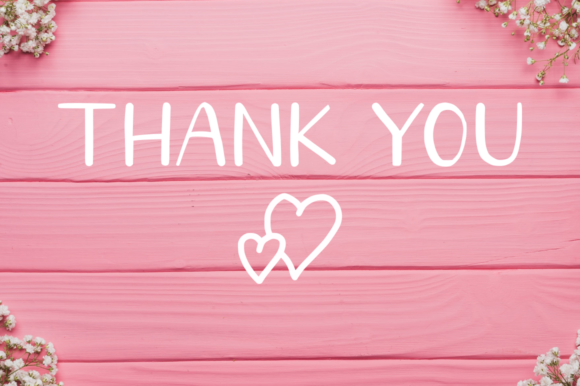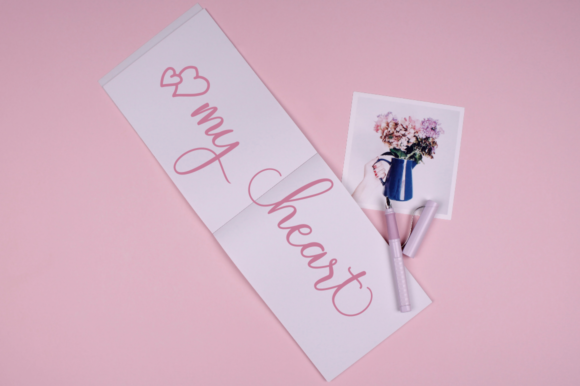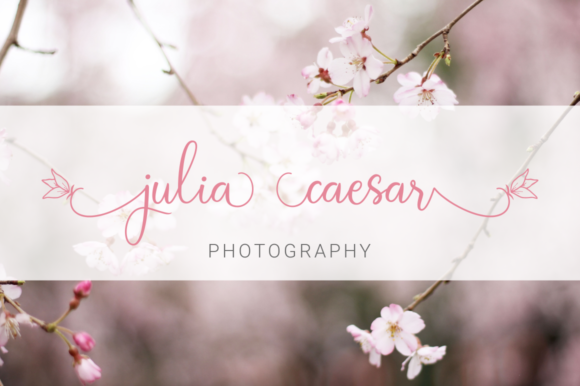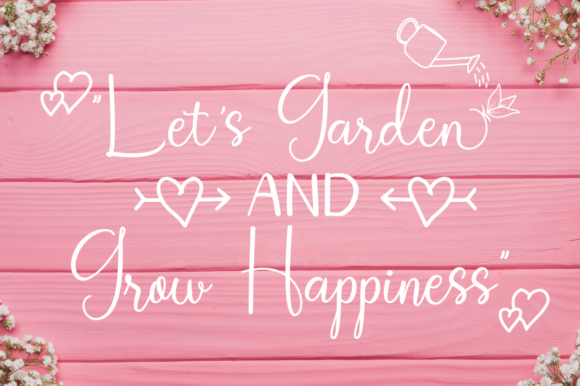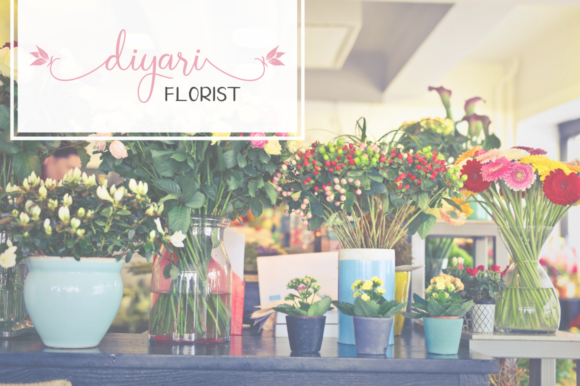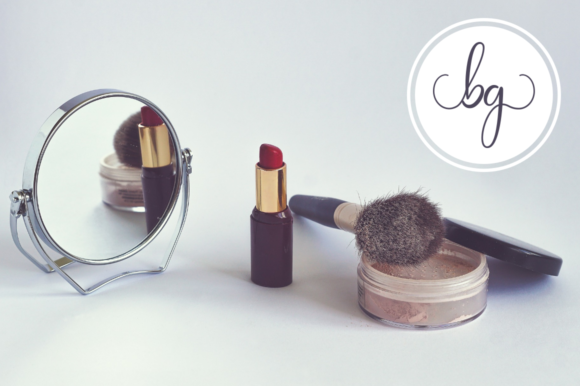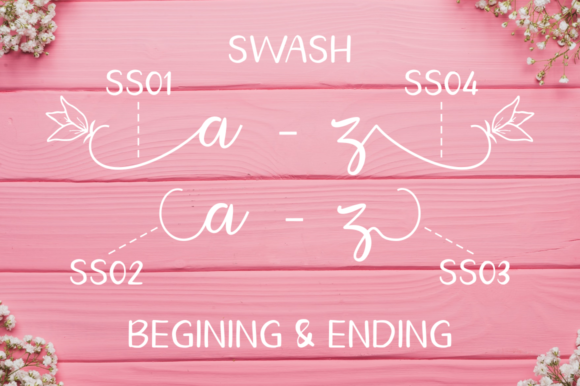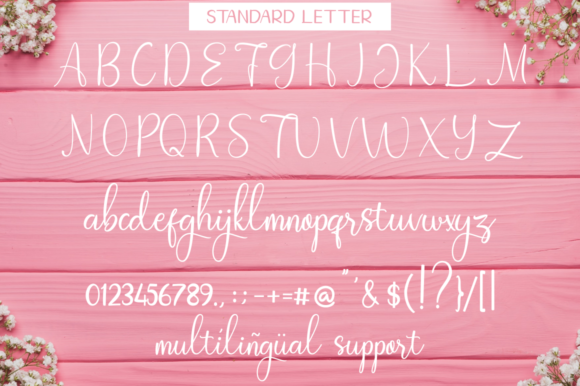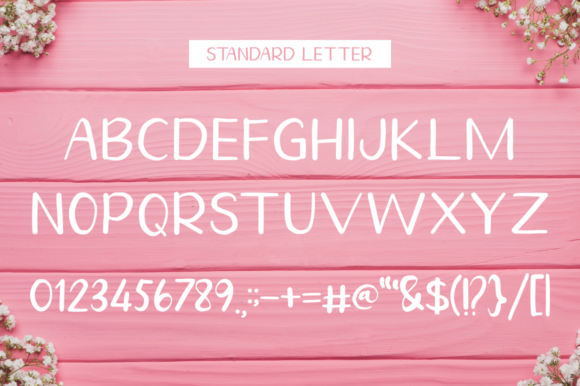
Homegarden Duo Font
Homegarden is a handwritten font duo with beautiful and sweet swashes and extra doodles. It will turn any design project into a stand out.